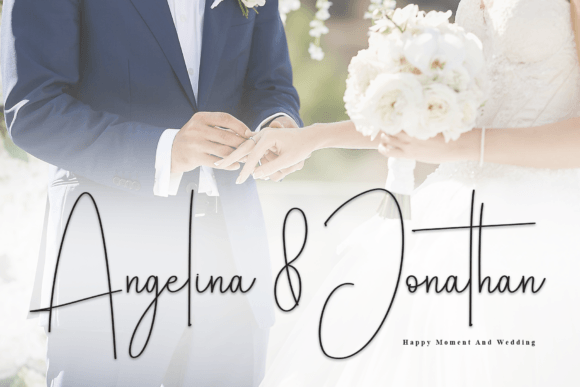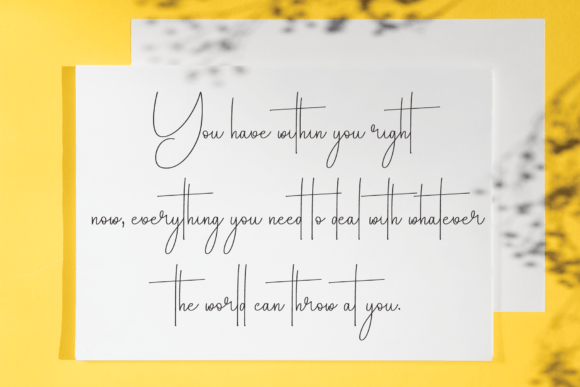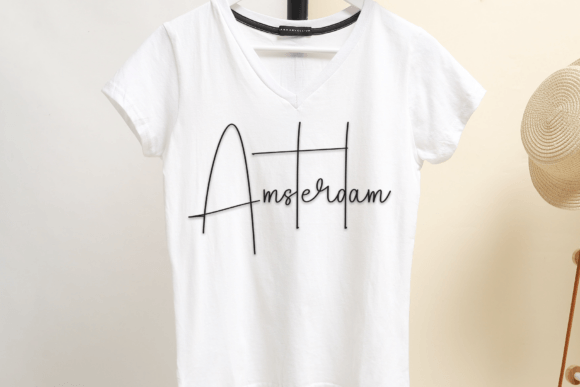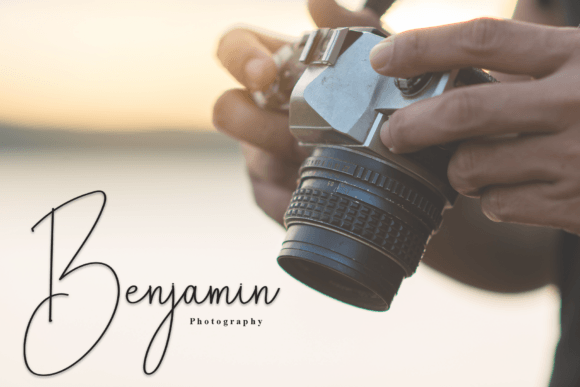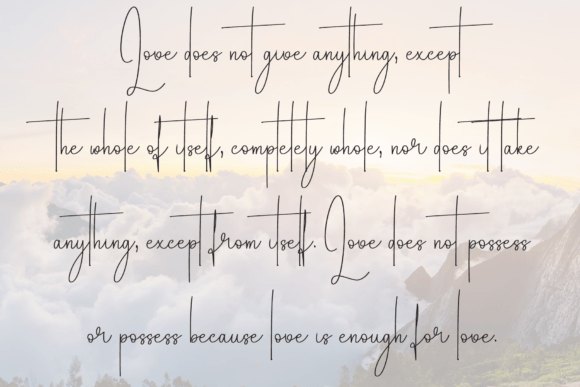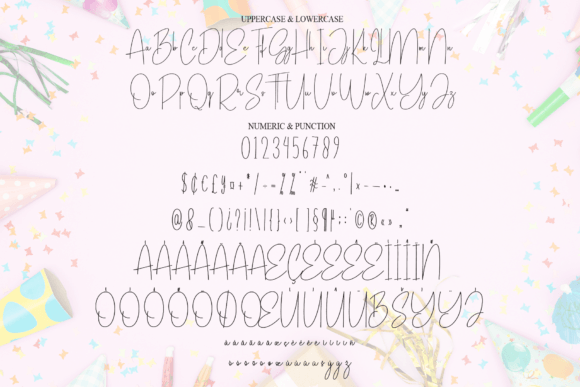
Introducing Birthday Font: The Elegant Handwritten Script Font for Your Designs
Are you looking for a font that adds a touch of elegance and charm to your designs? Look no further than Birthday Font, a stylish handwritten script font that is perfect for branding, invitations, and stationery. With its fluid, graceful strokes, Birthday Font is sure to elevate your designs and give them a personal and sophisticated touch.
The Characteristics of Birthday Font
Birthday Font is a beautifully crafted handwritten script font that boasts smooth curves and a natural flow. Its fluid strokes create a timeless, refined look that is perfect for a variety of design applications. The font’s elegant and charming appearance makes it ideal for designers and crafters who want to add a touch of sophistication to their work.
Perfect for Branding, Invitations, and Stationery
Birthday Font is a versatile font that can be used for a variety of design projects. Its elegant and refined appearance makes it perfect for branding, where a sophisticated and professional image is essential. The font is also ideal for invitations, such as wedding invitations, birthday invitations, and graduation invitations, where a personal and elegant touch is desired. Additionally, Birthday Font is perfect for stationery, such as letterheads, greeting cards, and journals, where a refined and sophisticated look is required.
The Benefits of Using Birthday Font
There are several benefits to using Birthday Font in your designs. Firstly, the font’s elegant and charming appearance is sure to elevate your designs and give them a personal and sophisticated touch. Secondly, the font’s smooth curves and natural flow create a timeless, refined look that is perfect for a variety of design applications. Finally, Birthday Font is a versatile font that can be used for a range of design projects, from branding and invitations to stationery and more.
Tips for Using Birthday Font in Your Designs
Here are a few tips for using Birthday Font in your designs:
- Use Birthday Font as a headline font to add a touch of elegance and sophistication to your designs.
- Pair Birthday Font with a sans-serif font to create a beautiful contrast and add visual interest to your designs.
- Experiment with different colors and textures to add depth and dimension to your designs.
- Use Birthday Font to create a cohesive brand identity by using it consistently across all of your design materials.
In conclusion, Birthday Font is a stylish handwritten script font that is perfect for designers and crafters who want to add a touch of elegance and charm to their designs. With its fluid, graceful strokes and smooth curves, Birthday Font is sure to elevate your designs and give them a personal and sophisticated touch. Whether you’re working on a branding project, creating invitations, or designing stationery, Birthday Font is a versatile font that is sure to meet your needs.